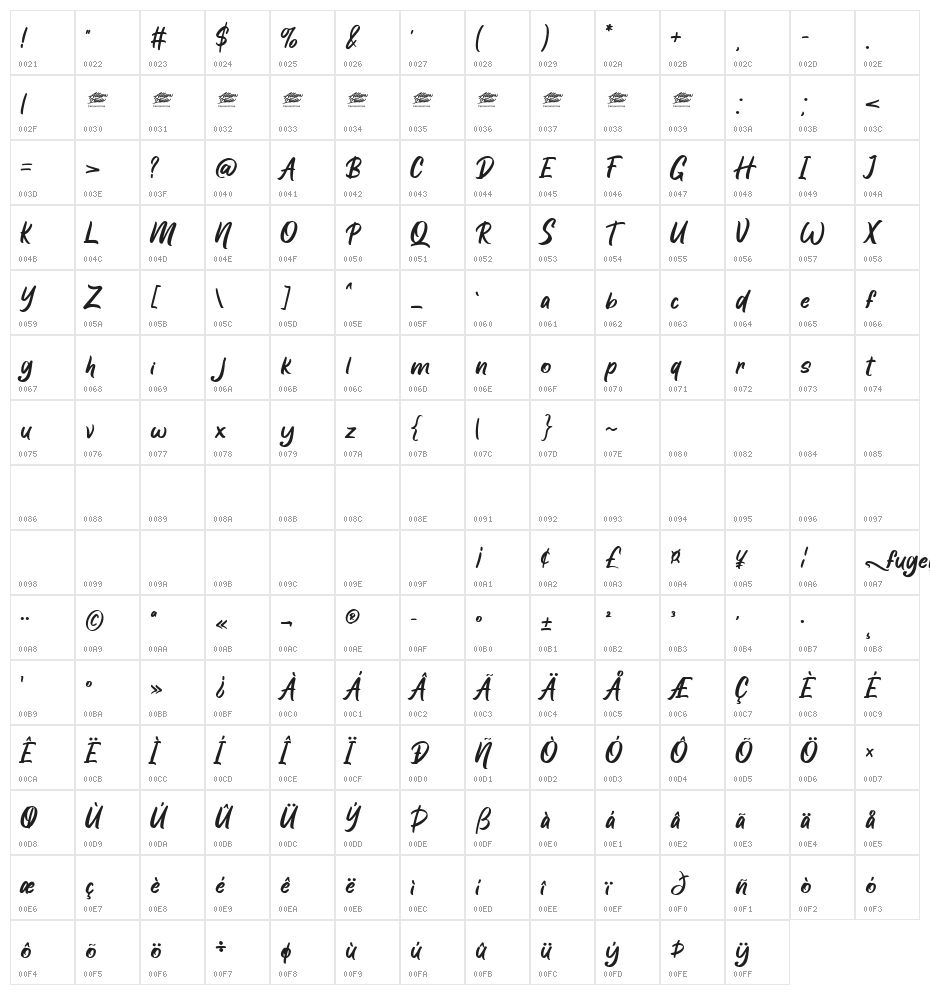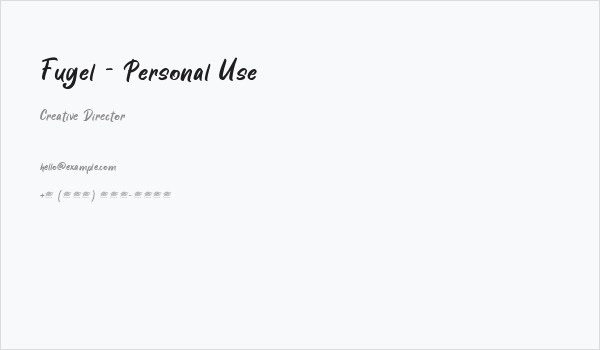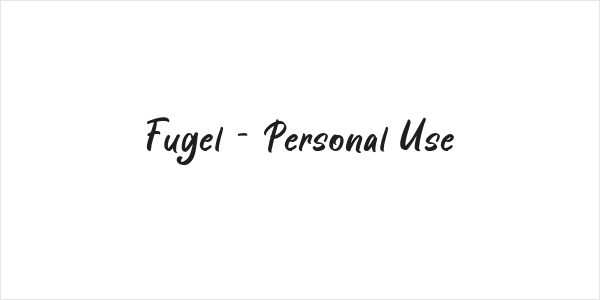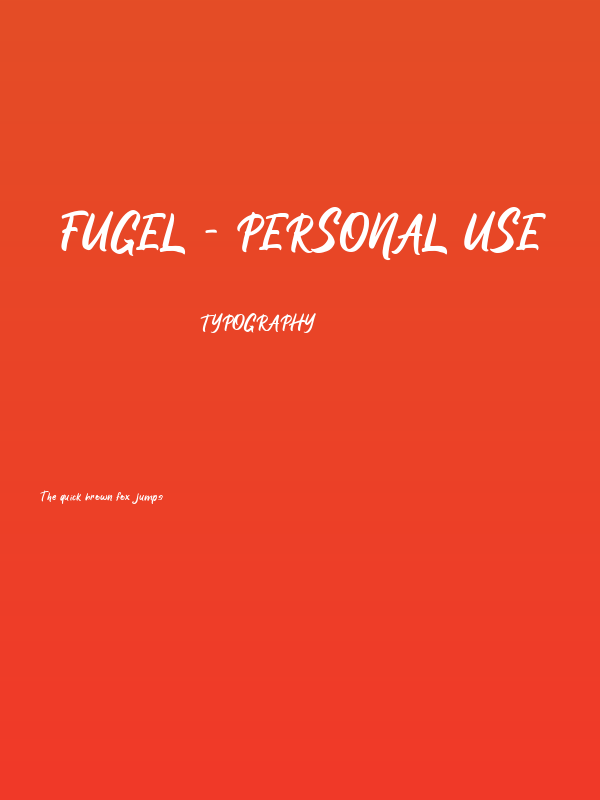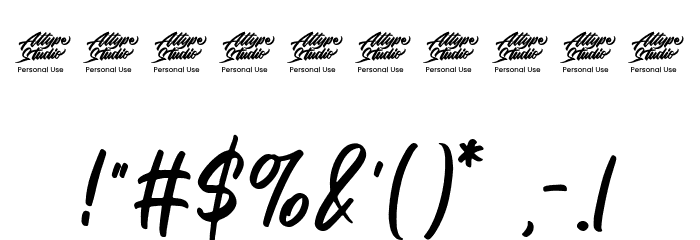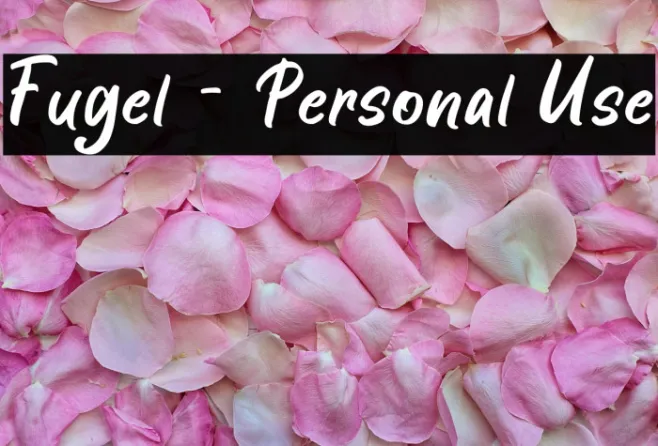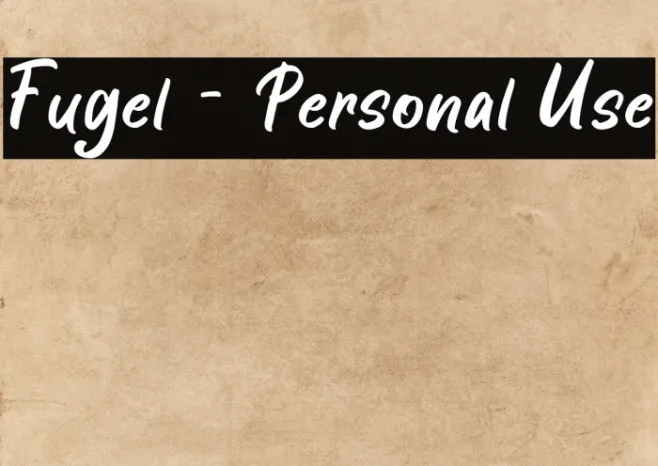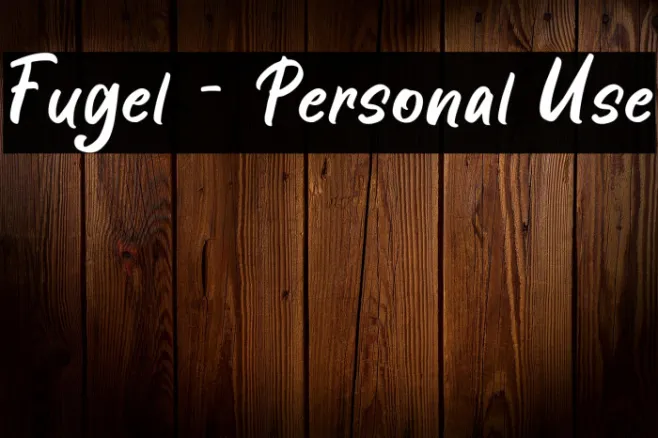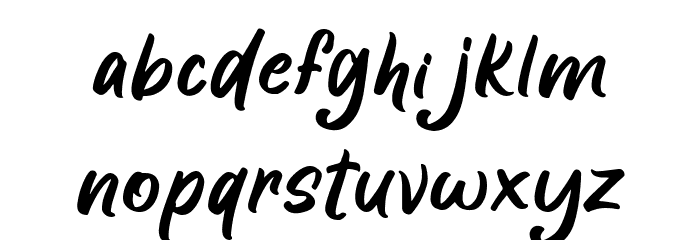
Fugel - Personal Use Font
Fugel - Personal Use Description
This font features a dynamic and flowing script style, characterized by its elegant and cursive letterforms. The uppercase letters exhibit a bold and sweeping design, while the lowercase letters maintain a consistent fluidity that enhances readability. The font's strokes are smooth and connected, giving it a handwritten appearance that is both stylish and approachable. The special characters and numerals are crafted with the same attention to detail, ensuring a cohesive look across all text elements. This font is ideal for projects that require a personal touch, such as invitations, greeting cards, or branding materials.
| Proposed Projects | Ideal for invitations, greeting cards, branding materials, and any project requiring a personal touch. |